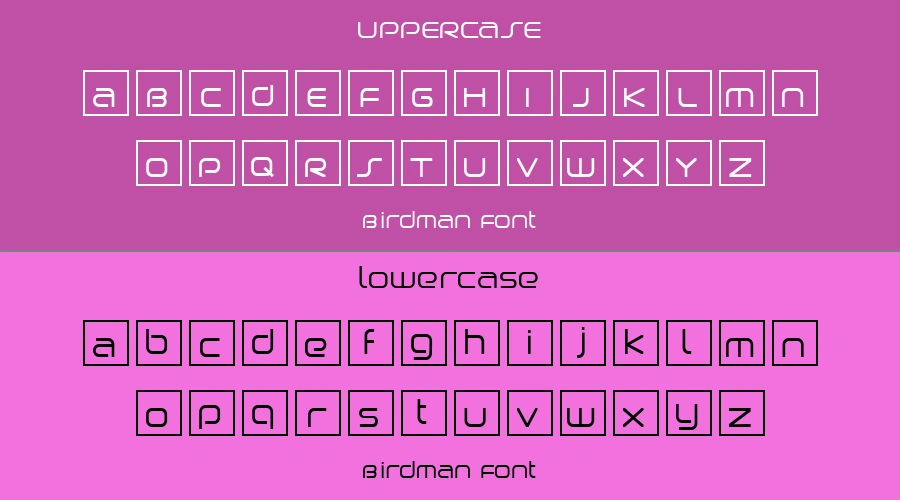
About Birdman Font
Birdman Font embodies typographic excellence through its masterful combination of monoline strokes and legibility. Created for presentation decks, this typeface delivers exceptional refinement and creative potential across all applications. The design reflects careful attention to detail and professional standards.
Advanced capabilities include distinctive flowing forms and versatile mathematical symbols, giving designers creative control. When used in colophons, Birdman Font exhibits remarkable texture integration. The harmonious balance between letterfit and artistic merit sets this typeface apart.